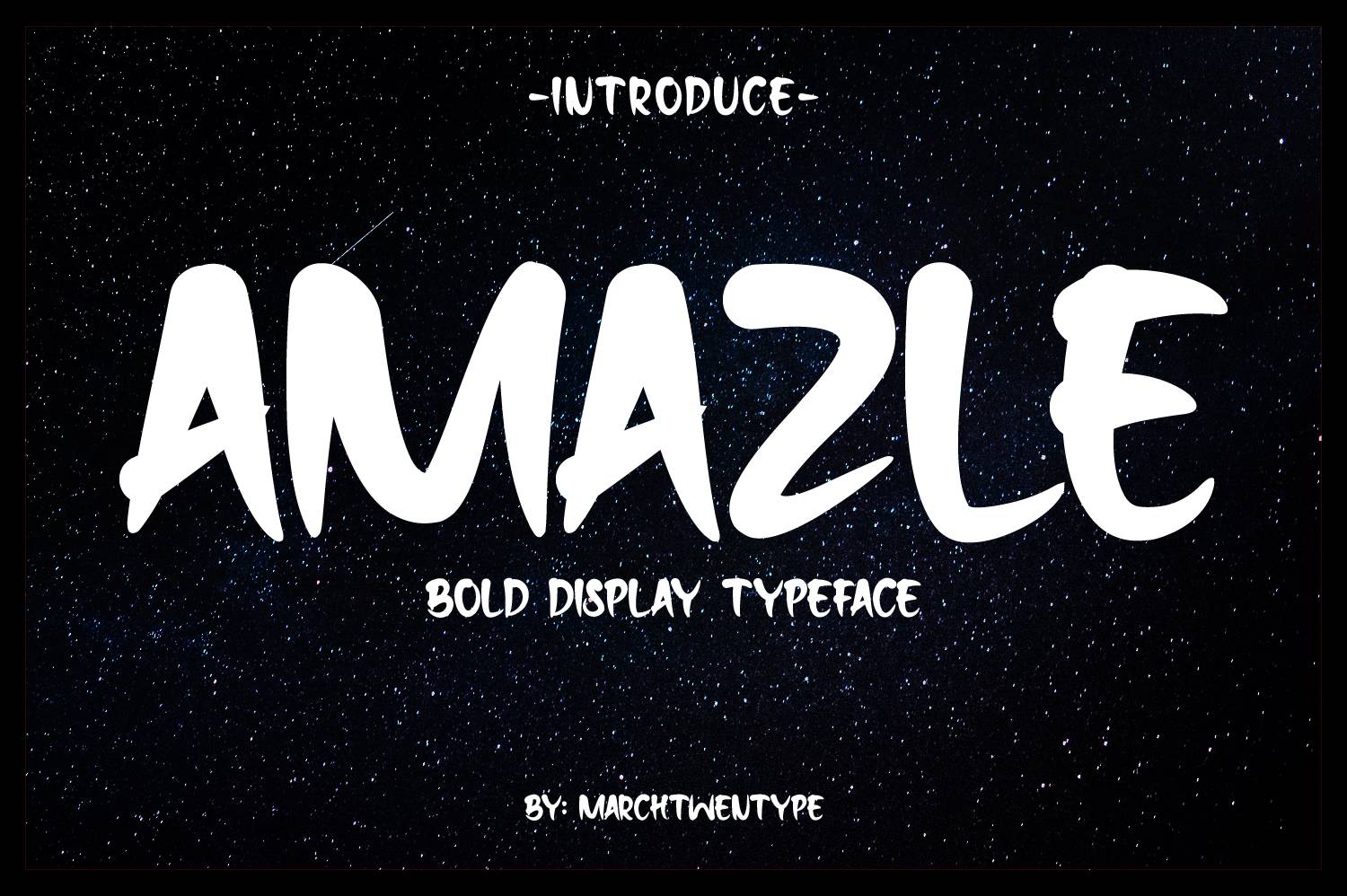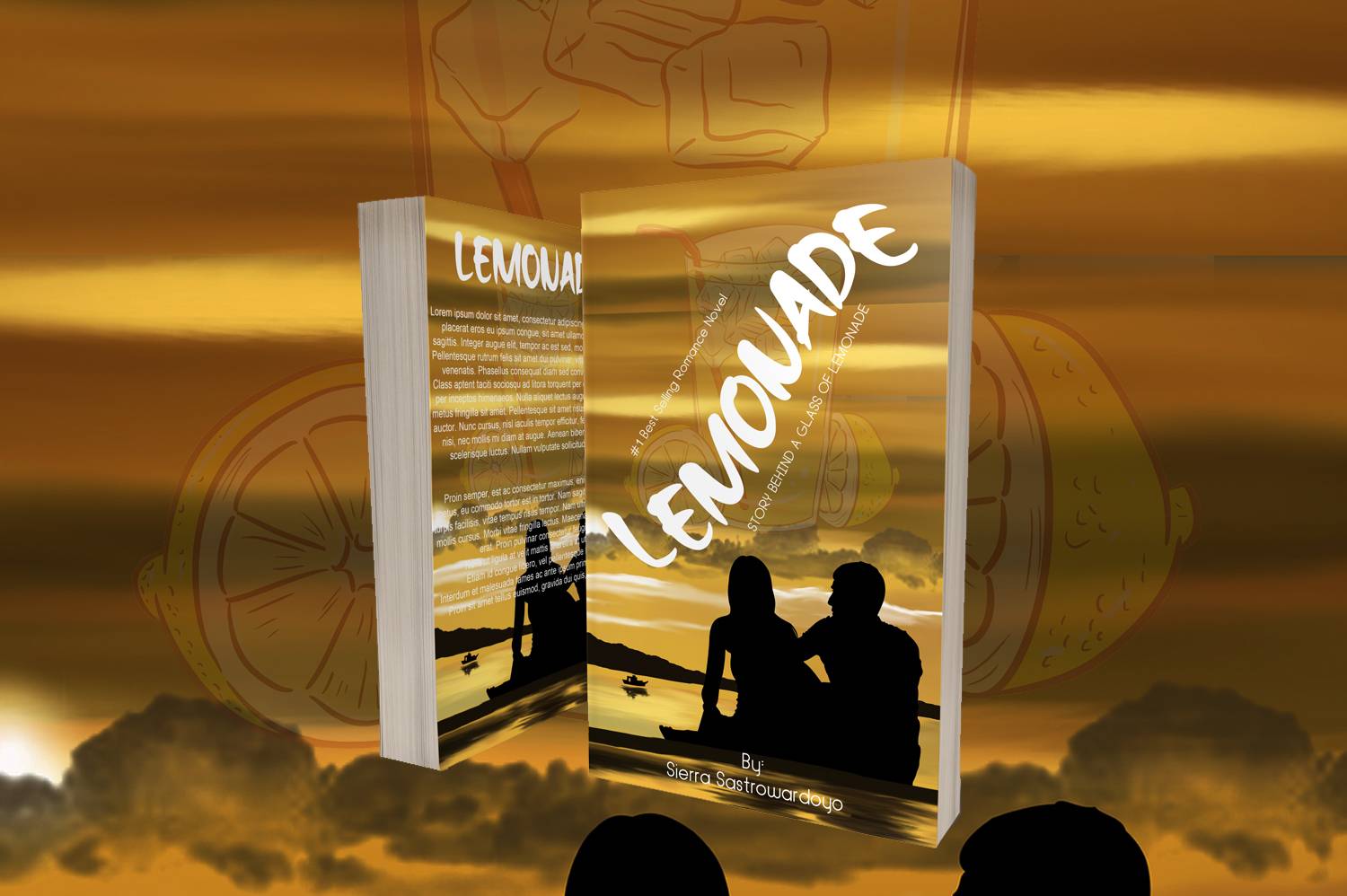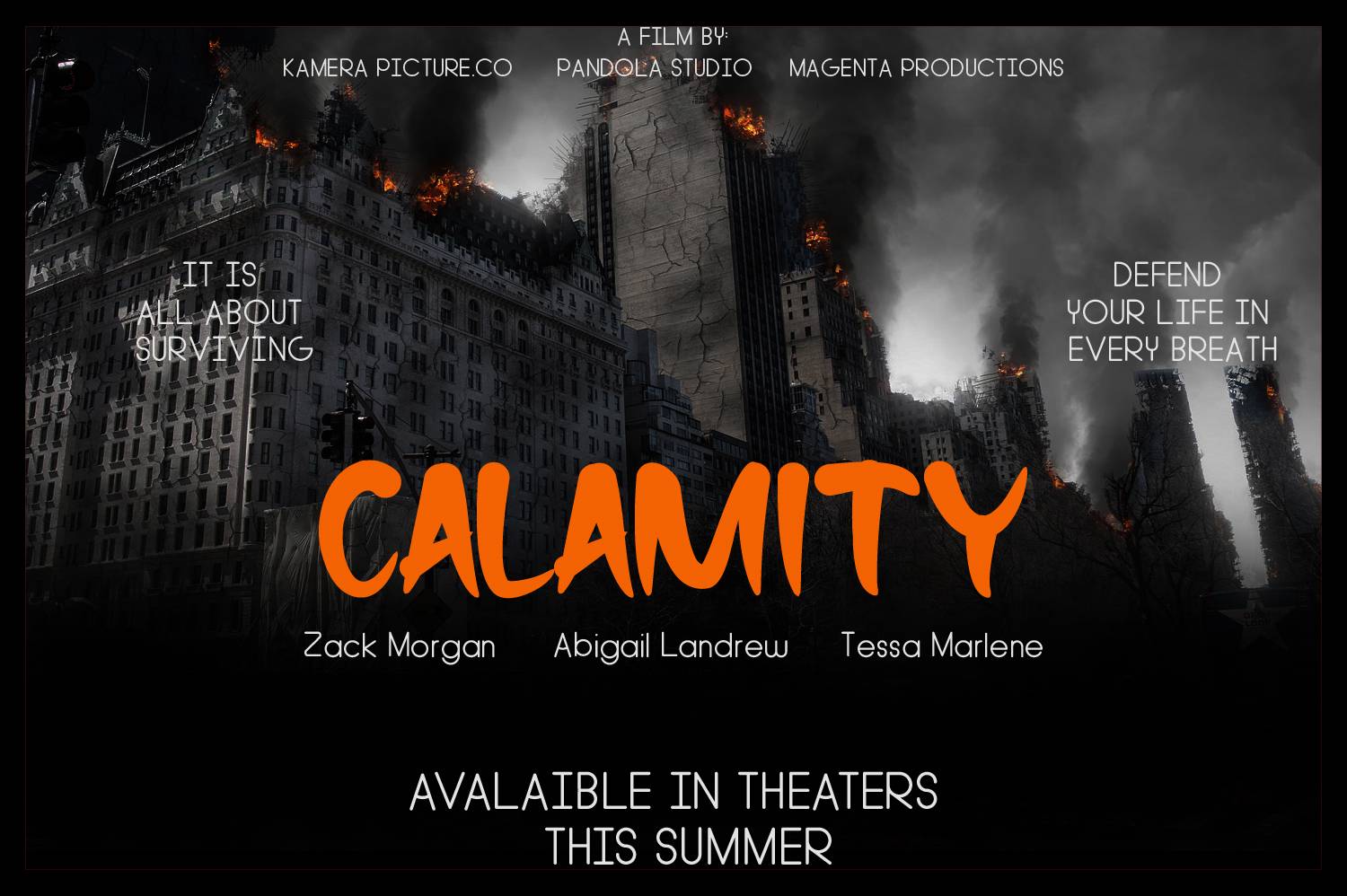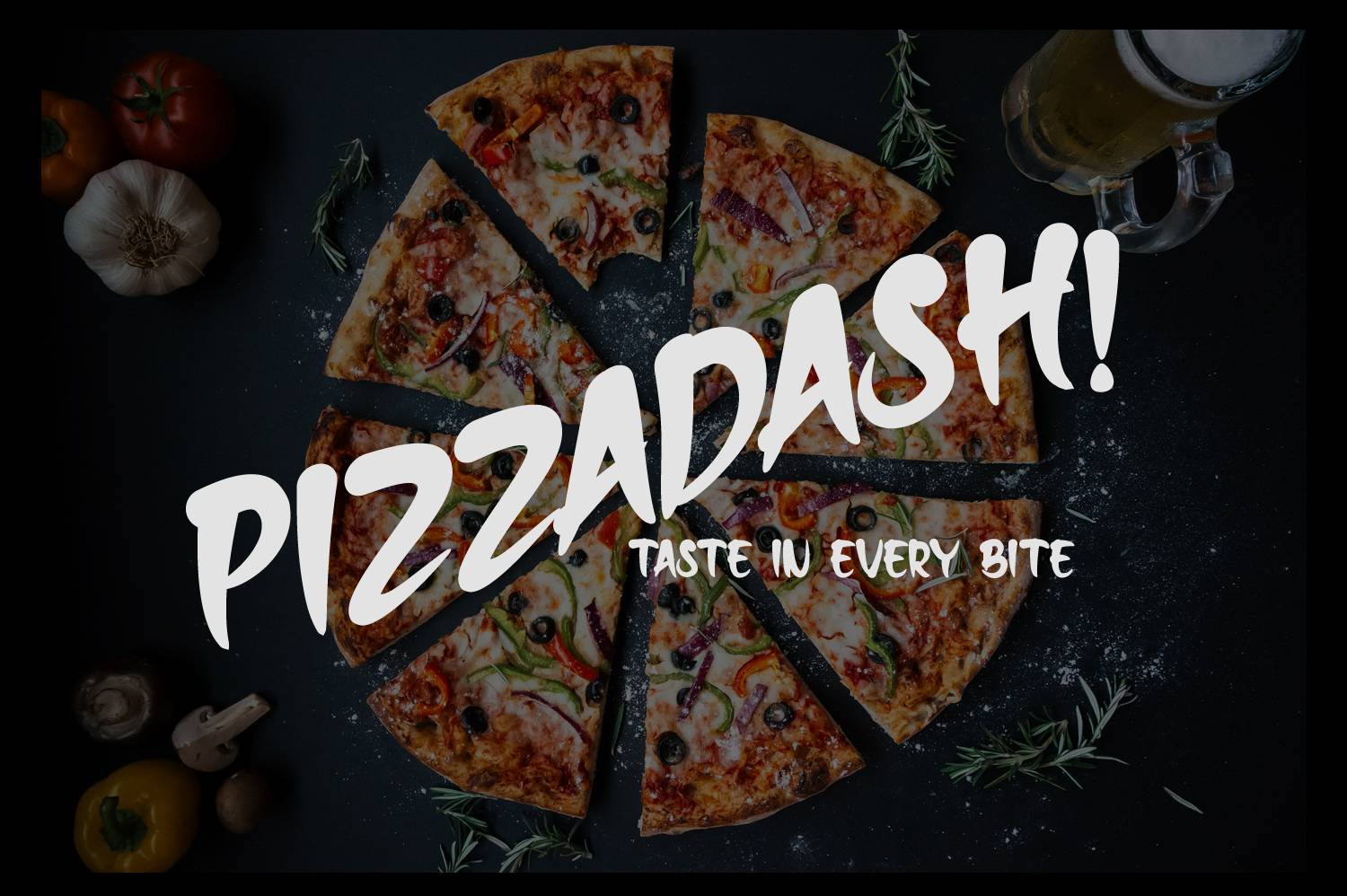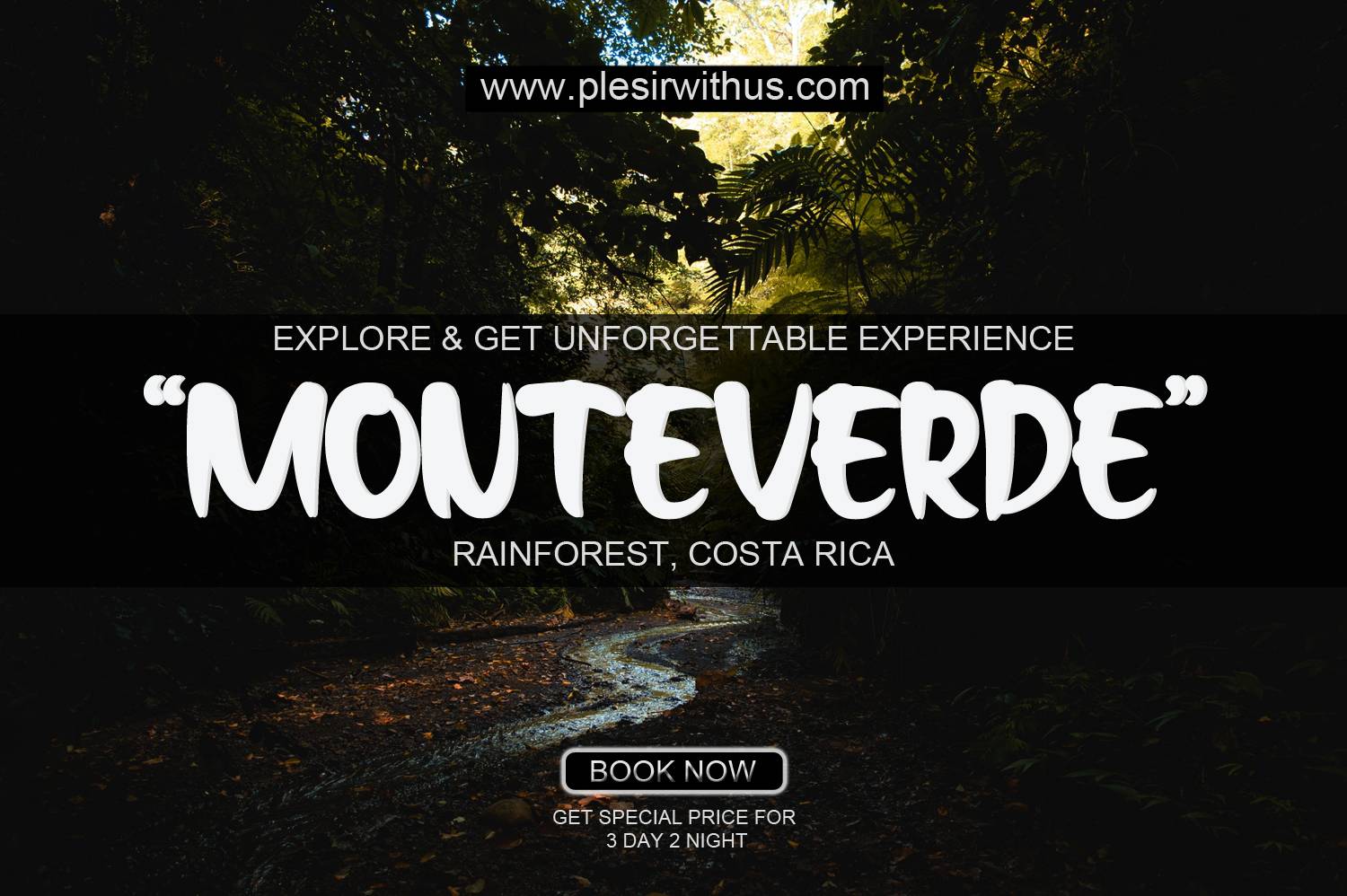
Amazle Typeface is a bold, playful script-style font with a hand-drawn feel, characterized by its thick, rounded strokes and casual, organic shapes. Its energetic and friendly personality makes it perfect for creative projects, informal branding, and attention-grabbing headlines where a fun and approachable vibe is desired. This font works well in logos, posters, and packaging that aim to evoke warmth and creativity.
Amazle Typeface Font
About Amazle Typeface Font
| Font family | Amazle Typeface Font |
| Designer | E. Nurcahyo |